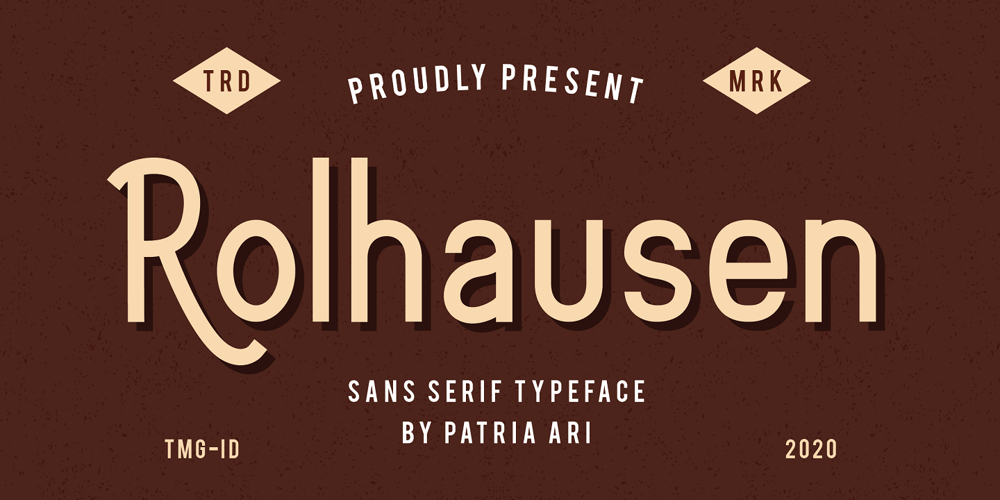
Rolhausen Font Family was designed by Patria Ari Wijonarko and published by Patria Ari. Rolhausen contains 2 styles and family package options. Rolhausen is a Sans Serif Typeface which is suitable for you who needs a typeface for headline, logotype, apparel, invitation, branding, packaging, advertising etc.